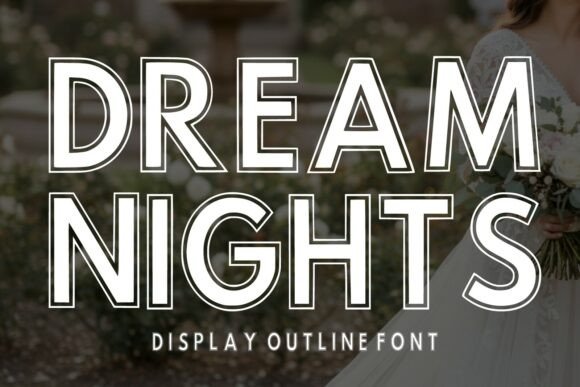
Dream Nights: A Display Font That Elevates Your Brand Instantly
It was a Tuesday afternoon—rain tapping softly against the café window—and I was staring at the draft of our new seasonal menu. The old one had served us well, but something felt off. Not the coffee, not the pastries… just the *look*. The font we’d used for months suddenly looked tired, generic, even forgettable. That’s when I remembered a tip from a fellow small business owner: “Start with your typeface. Everything else falls into place.” So I searched for a display font that felt like *us*—warm but polished, modern but approachable—and found Dream Nights.
Dream Nights is a stylish outline display font designed to bring a modern, elegant, and sophisticated feel to your creative projects. Its clean lines and refined letterforms aren’t fussy or overly ornate—they’re confident, graceful, and quietly memorable. Think of it as the kind of typography that makes customers pause mid-scroll on Instagram, tilt their head at a candle label in a boutique, or linger over a beautifully printed thank-you card tucked into a bakery box.
I started small: swapping Dream Nights into our menu headers and social media story templates. Right away, things felt more intentional. Our café’s brand identity—cozy, thoughtful, rooted in real moments—finally had visual rhythm. No redesign needed. Just one thoughtful font choice, applied consistently across a few key touchpoints, and suddenly our whole presence felt more cohesive.
Dream Nights shines brightest where attention matters most: logos, product labels, packaging titles, business cards, stickers, website banners, and social media graphics. It’s not meant for long paragraphs—that’s where a clean sans serif companion does the heavy lifting—but for short, impactful phrases? Absolutely. Imagine it on a lavender-scented candle jar (“Evening Calm”), a ceramic mug tag (“Brew Mindfully”), or the header of an online shop’s holiday promo banner. Each time, Dream Nights adds quiet sophistication without shouting.
What surprised me most was how much trust it built—not through marketing claims, but through visual consistency. Customers began recognizing our aesthetic before they even saw our name. That’s the power of strong typography: it shapes first impressions faster than any tagline. When your packaging, website, and Instagram grid all share the same refined voice, people subconsciously register your brand as professional, intentional, and worth remembering.
Readability was top of mind, especially for small applications. On 2-inch candle labels? I kept text minimal—just one word or a two-word phrase—and used Dream Nights at a slightly larger size with generous spacing. For mobile screens, I tested thumbnails in Stories and Reels: bold enough to read at a glance, light enough to feel airy. And on printed materials—like our kraft paper bakery boxes—the font held up beautifully, even with subtle ink bleed. It’s not a “set and forget” font; it rewards thoughtful sizing and spacing, which honestly made me more deliberate about every design decision.
Pairing Dream Nights was simple and satisfying. I landed on a warm, neutral sans serif (think something like Montserrat or Inter) for body text, ingredient lists, and fine print. The contrast works beautifully: Dream Nights brings character and charm; the sans serif keeps things grounded and legible. For a special-edition holiday sticker, I even layered it with a delicate script font for a handwritten accent—just a single word like “Hand-poured” or “Small-batch”—and the combination felt both luxurious and human.
Real talk: upgrading your brand doesn’t always mean a full rebrand. Sometimes it’s choosing a display font that feels like your brand’s truest self—and then using it with care. With Dream Nights, I didn’t overhaul our logo or change our color palette. I simply gave our voice a more distinct, elegant tone. Now, whether someone sees our menu taped to the counter, our Instagram highlight cover, or the embossed foil on a gift card, there’s a thread of consistency—and quiet confidence—that ties it all together.
If you’re a small business owner refreshing packaging, updating social templates, designing a new product line, or just tired of fonts that don’t quite *fit*, try Dream Nights where impact matters most. Use it for headlines, logos, labels, banners, and decorative accents—not as background noise, but as a signature detail. Let it be the subtle polish that says, “We care about how this feels—not just how it looks.”
Because in the end, great typography isn’t about trends. It’s about showing up, clearly and kindly, in every place your customers meet you.